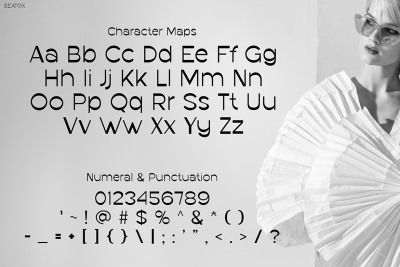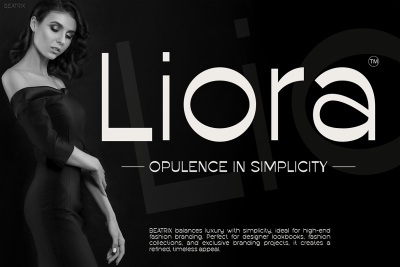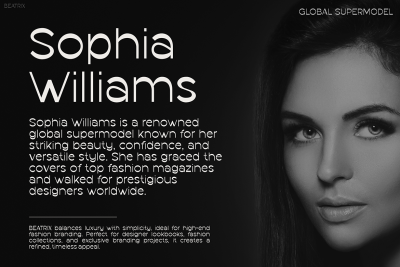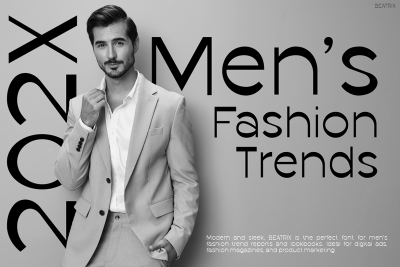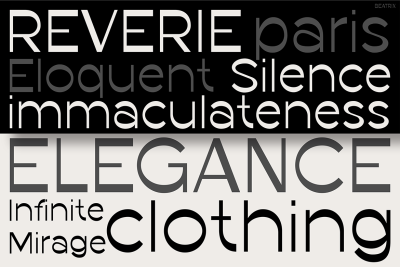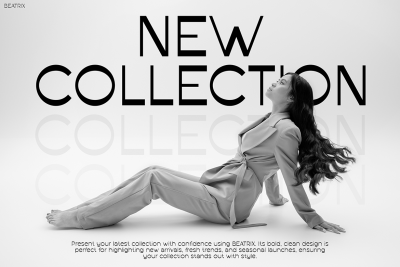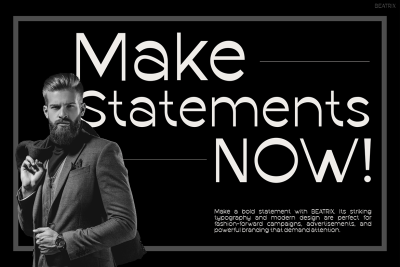
Instagram Font BEATRIX โ The Epitome of Modern Elegance
Instagram Font BEATRIX is a sleek and modern typeface designed for bold, stylish branding. It features clean, geometric letterforms that create a contemporary and sophisticated look. Not only is this font visually appealing, but it also ensures excellent readability. Whether you are designing headlines, promotional content, or social media posts, BEATRIX makes sure your message is both clear and eye-catching.
What sets BEATRIX apart is its perfect balance of elegance and versatility. With its sharp edges and minimalist structure, this font is ideal for high-fashion campaigns, luxury branding, and digital marketing. Moreover, it seamlessly adapts to both print and digital platforms. More than just a typeface, BEATRIX is a statement of modern style and professionalism.
Perfect for Designers, Brands, and Influencers
If you are looking for a modern, high-impact font, Instagram Font BEATRIX is the right choice. It works exceptionally well for digital creators, marketers, and luxury brands that want to stand out.
- Fashion Brands & Magazines โ BEATRIX enhances editorial layouts, advertisements, and trend reports. It not only creates a polished and exclusive look but also makes every design feel more refined.
- Social Media Influencers & Content Creators โ Whether for Instagram posts, promotional graphics, or personal branding, this font ensures that every piece of content looks sleek and professional. Additionally, it helps build a strong and consistent online presence.
- Luxury & Modern Businesses โ High-end boutiques, lifestyle brands, and tech startups can use BEATRIX to convey sophistication. As a result, they can create a strong and lasting brand identity that appeals to premium audiences.
- Event Promotions & Advertisements โ From sales flyers to exclusive event invitations, BEATRIX grabs attention instantly. Not only does it make marketing materials striking, but it also ensures that important information remains easy to read.
Elevate Your Brand with BEATRIX
In design, first impressions matter. Instagram Font BEATRIX guarantees that your brand, campaign, or content stands out from the crowd. Thanks to its refined yet bold aesthetic, it captures attention immediately.